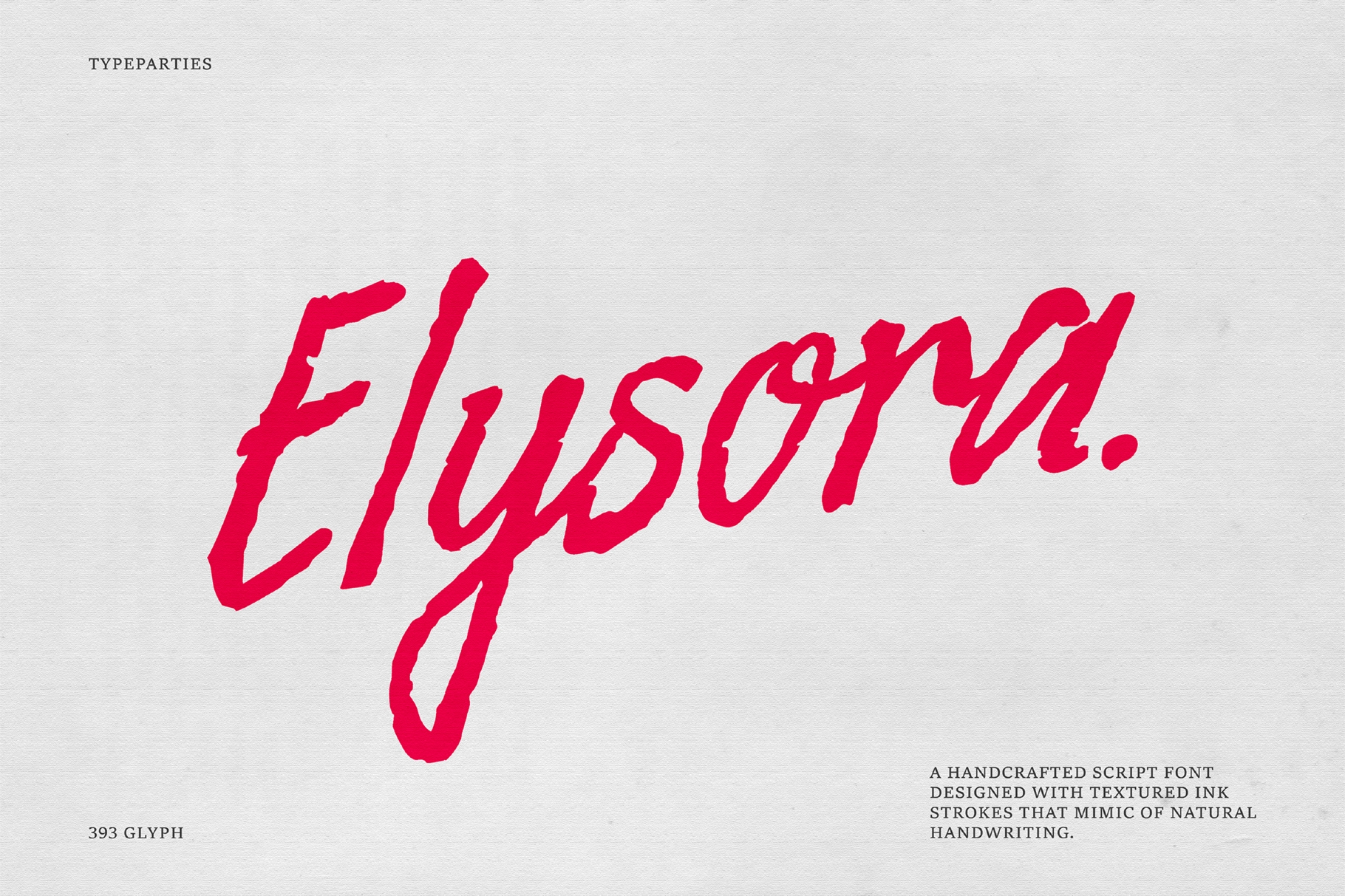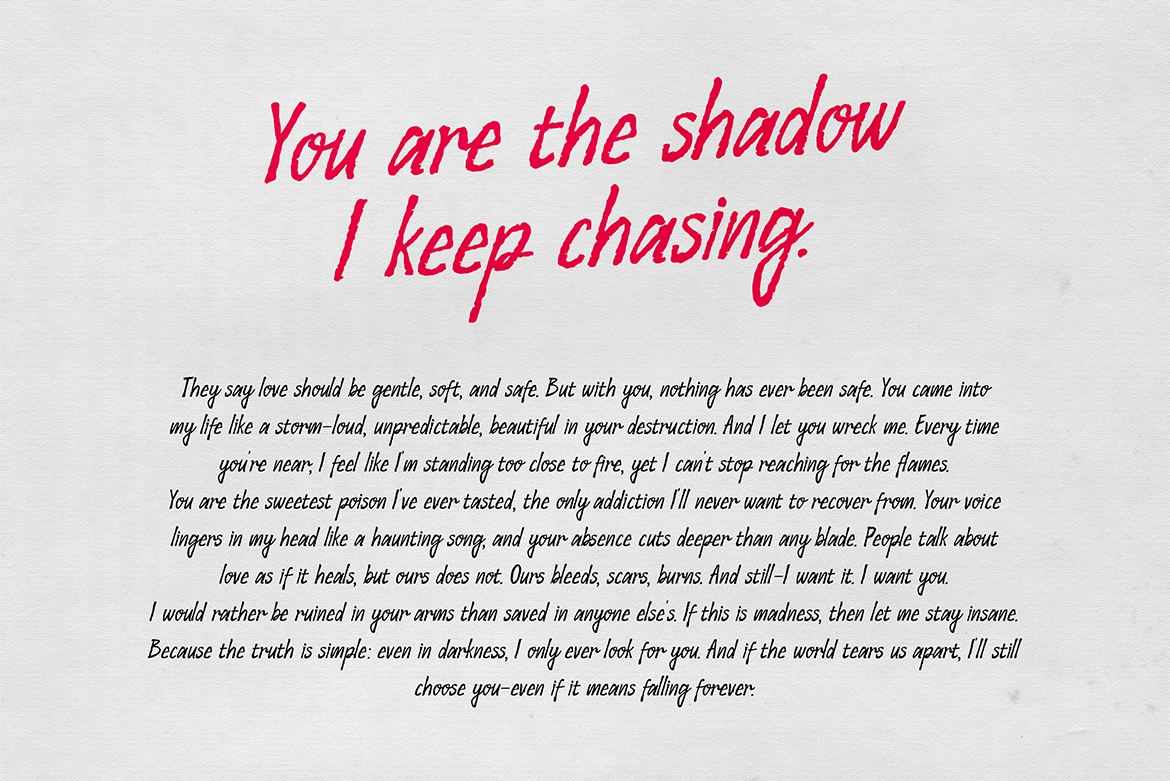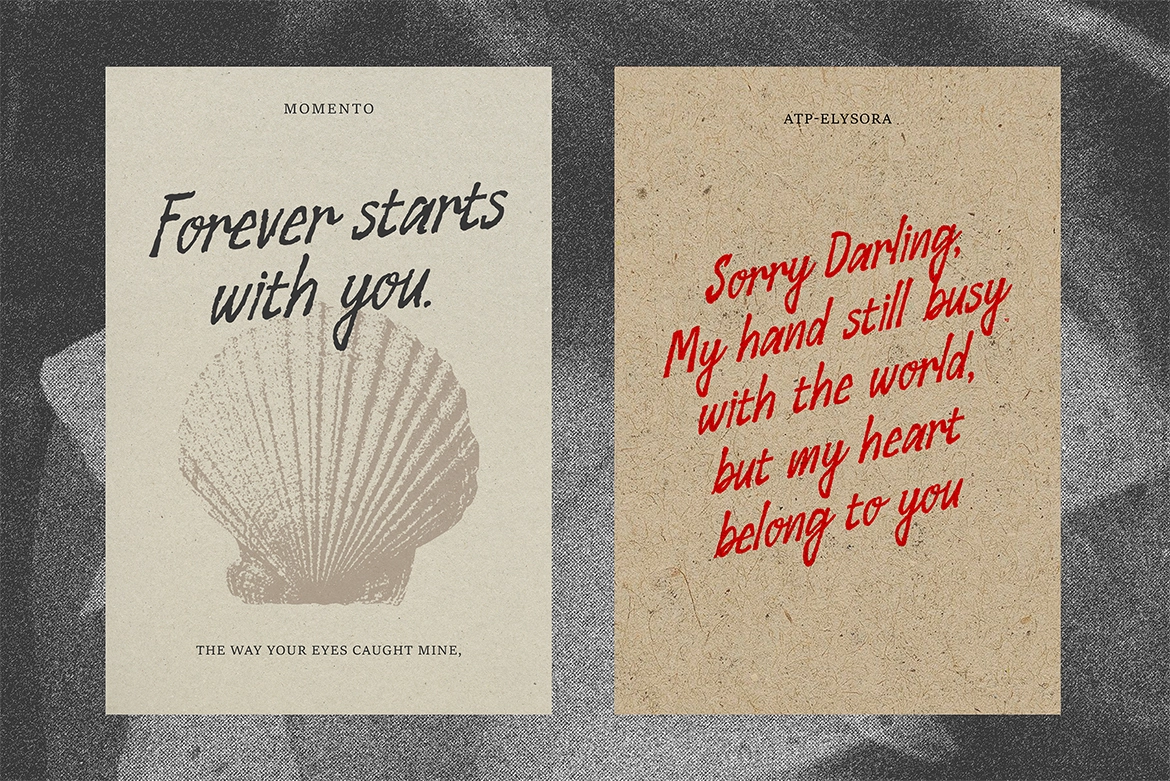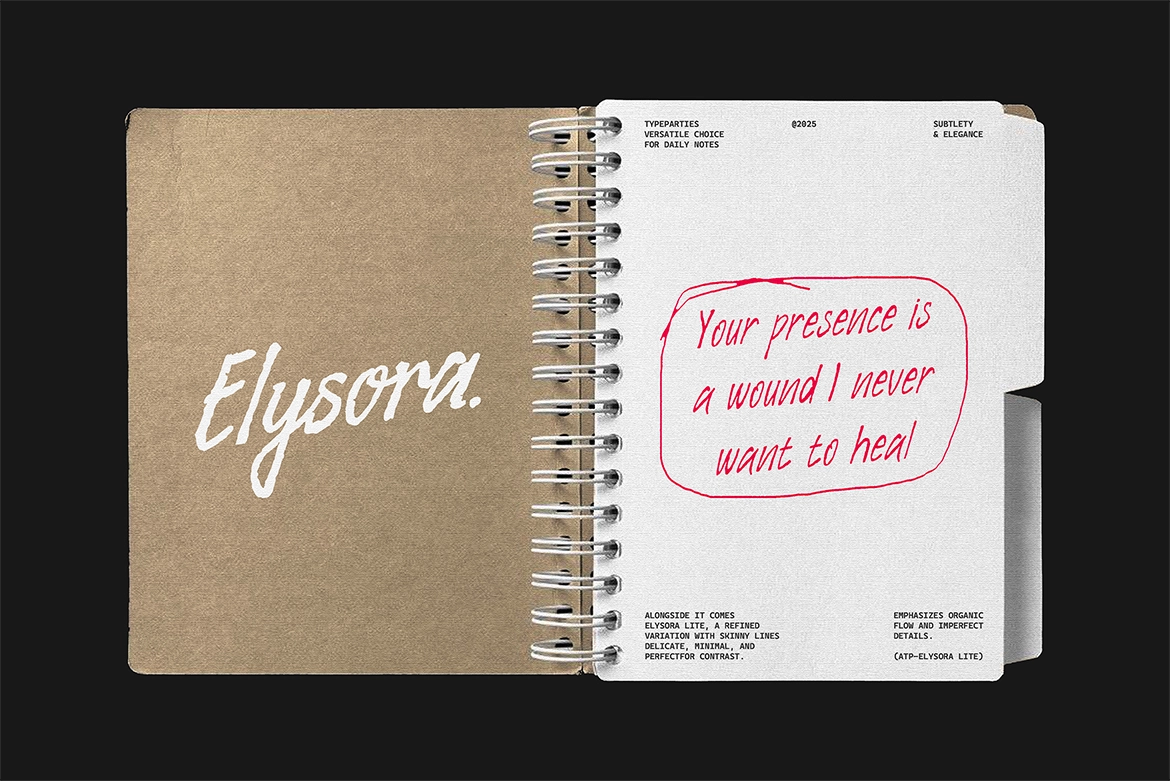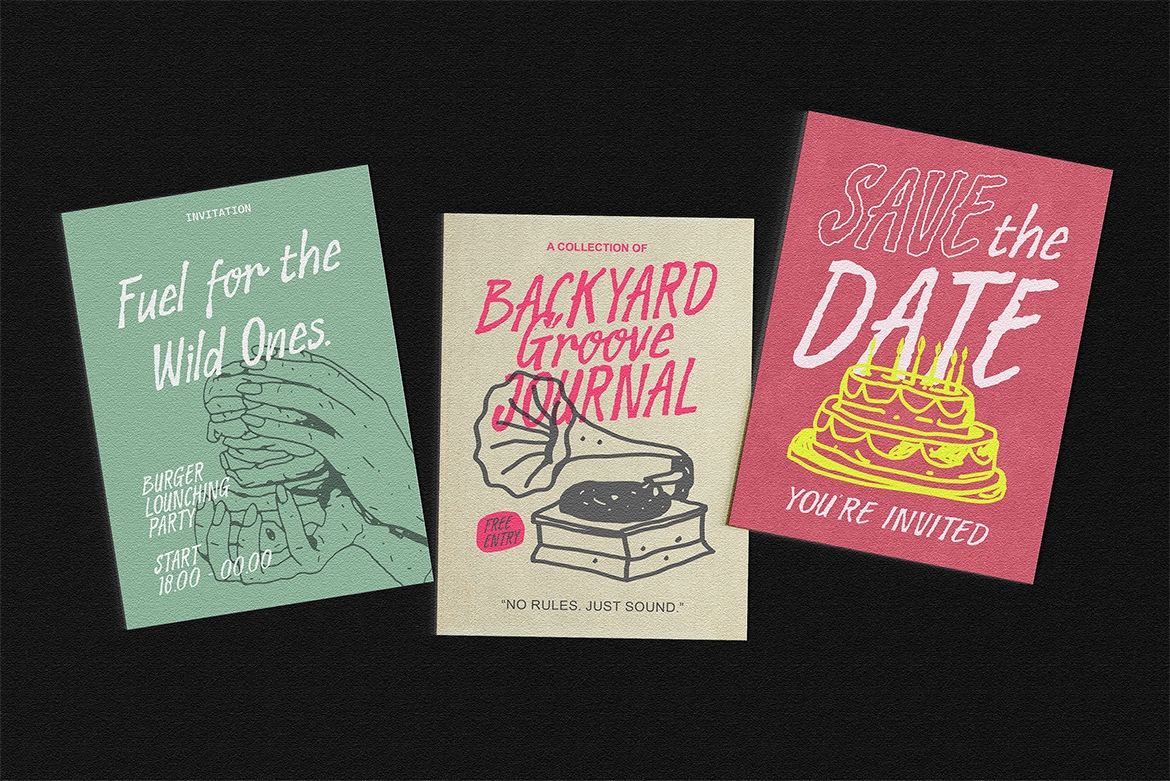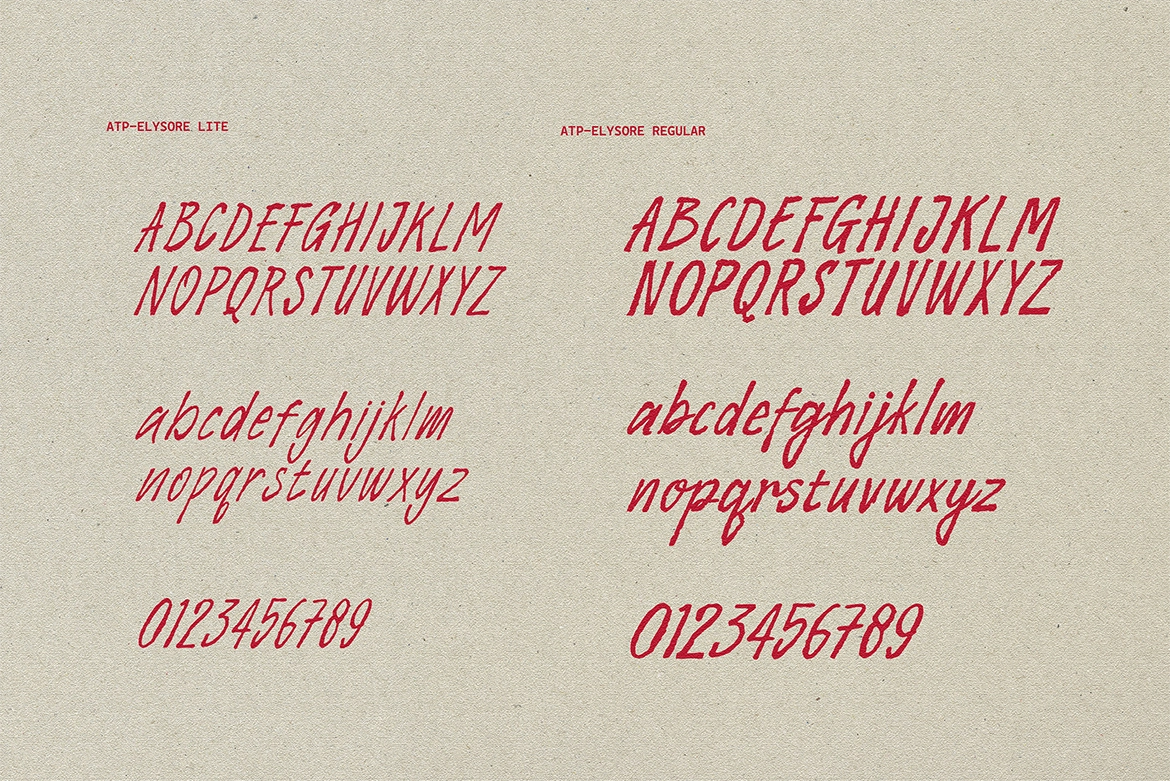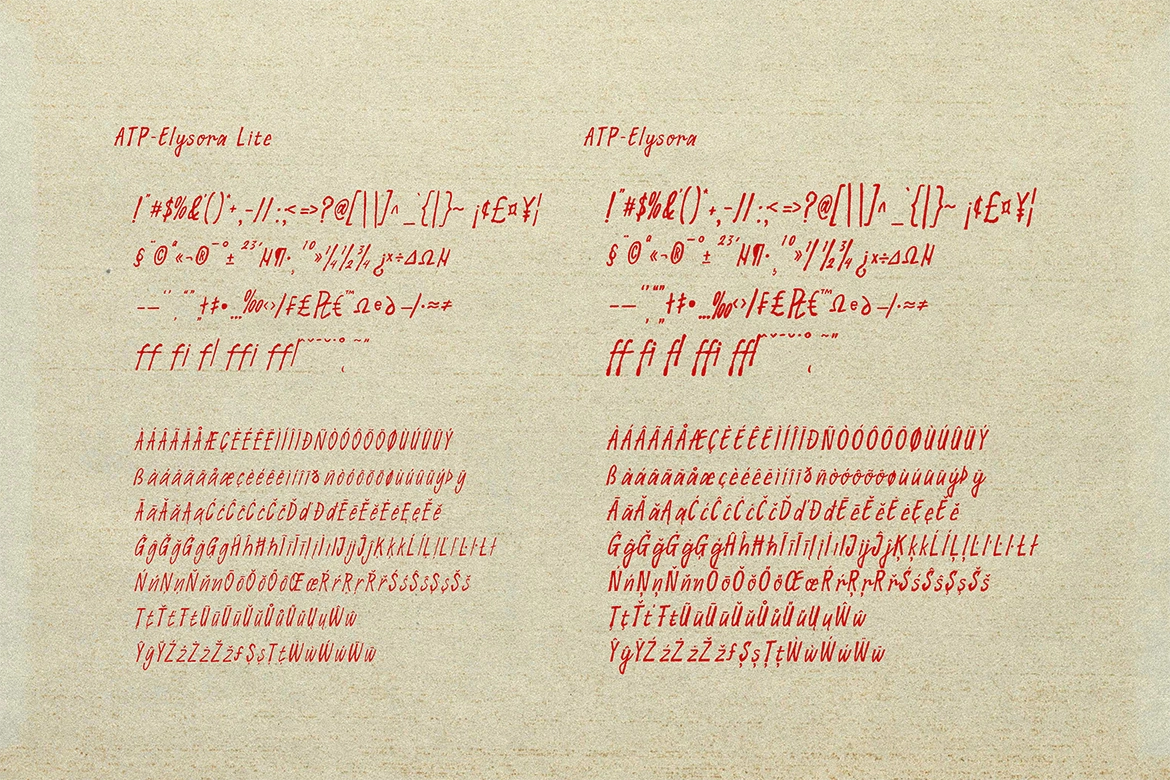
Elysora - Rough Script Font
Elysora – Rough Script Font is a handcrafted typeface inspired by the textured flow of vintage handwriting. With bold, ink-rich strokes, expressive curves, and natural imperfections, it brings a raw and authentic character to any design. The main style delivers strong visual impact, perfect for headlines that need emotion and personality.
The family also includes Elysora Lite, a lighter and more delicate variation that creates elegant contrast. Together, they allow you to build dynamic compositions — from bold branding and vintage posters to editorial layouts and expressive digital content.
• Handcrafted rough script font
• Includes Regular & Lite styles
• Textured ink effect with natural imperfections
• Uppercase & lowercase characters
• Numerics & punctuation